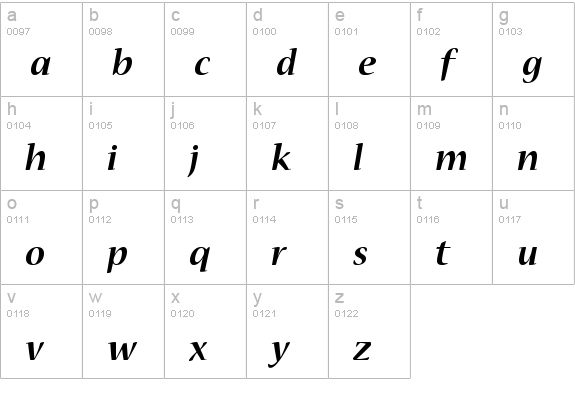
Nueva Std Bold Italic is a strong, high-contrast, italic variant in the Nueva typeface family \xE2\x80\x94 well suited to headlines, attention-grabbing titles, and strong calls-to-action.
Nueva Std Bold Italic is a modern and stylish typeface that exudes sophistication and elegance. Its bold and italic design adds a touch of flair to any project, making it perfect for headings, logos, and other design elements that need to make a statement. The sleek and contemporary look of Nueva Std Bold Italic makes it a versatile choice for a wide range of applications. And the best part? Nueva Std Bold Italic is available for free download at FontsMarket.com. This means you can easily add this beautiful font to your design arsenal without breaking the bank. Whether you're a professional designer looking for a new go-to font or a hobbyist looking to elevate your projects, Nueva Std Bold Italic is a fantastic choice that won't cost you a thing. Download it today and start creating stunning designs with ease.